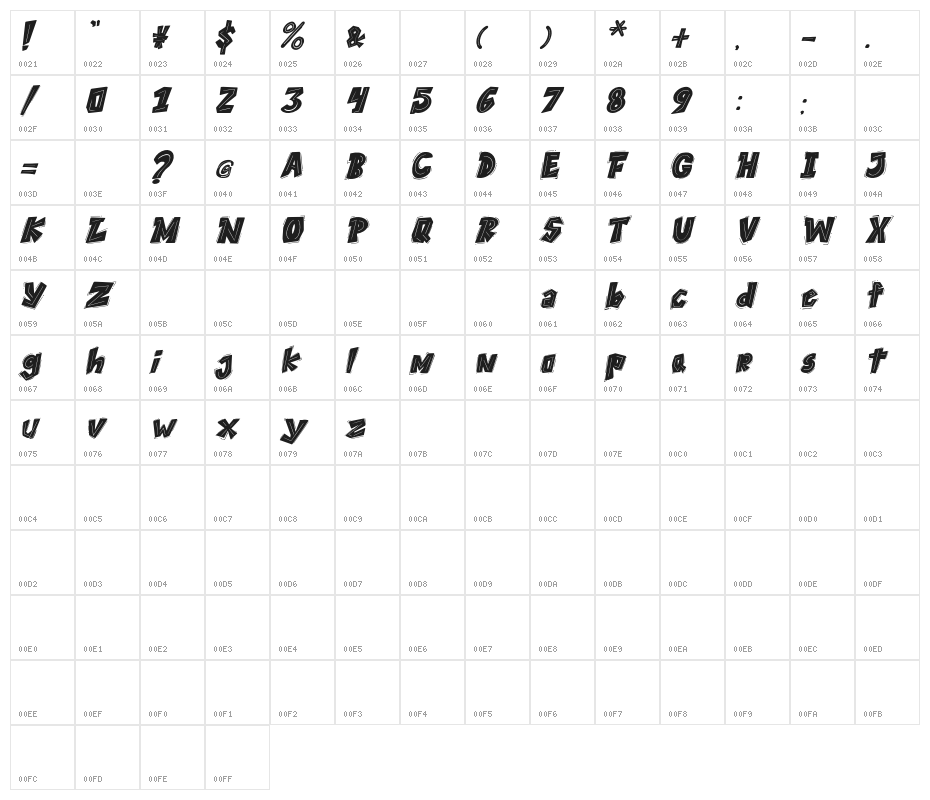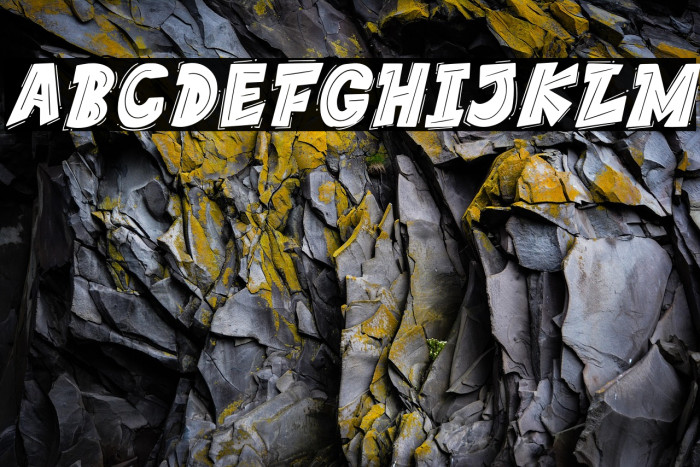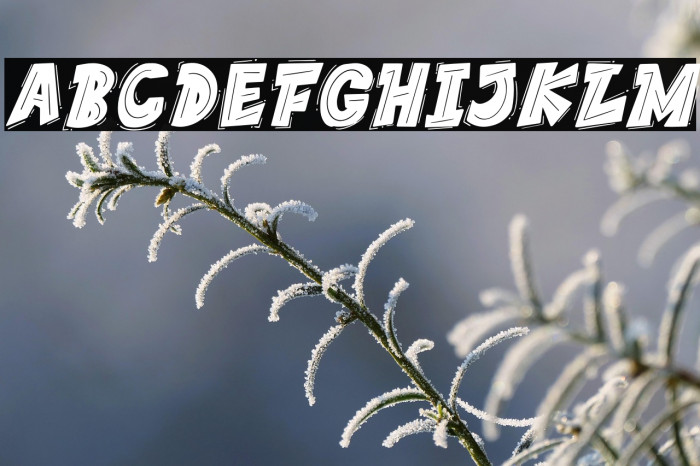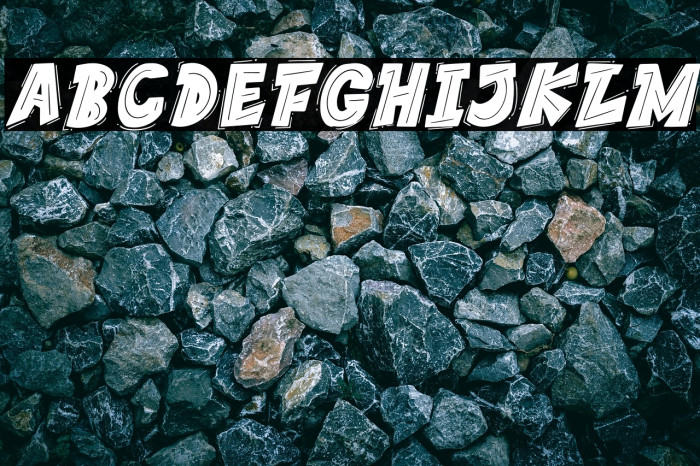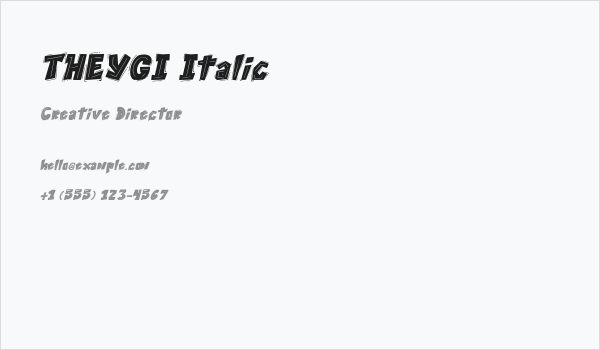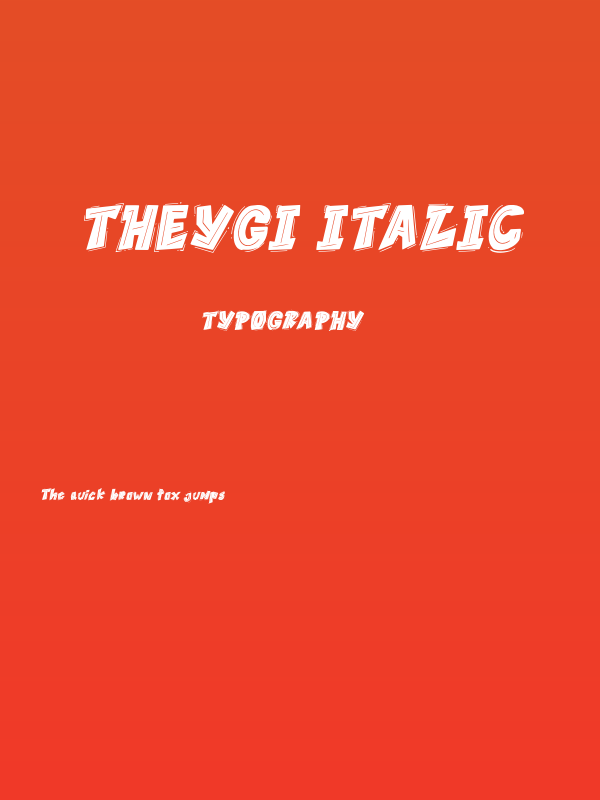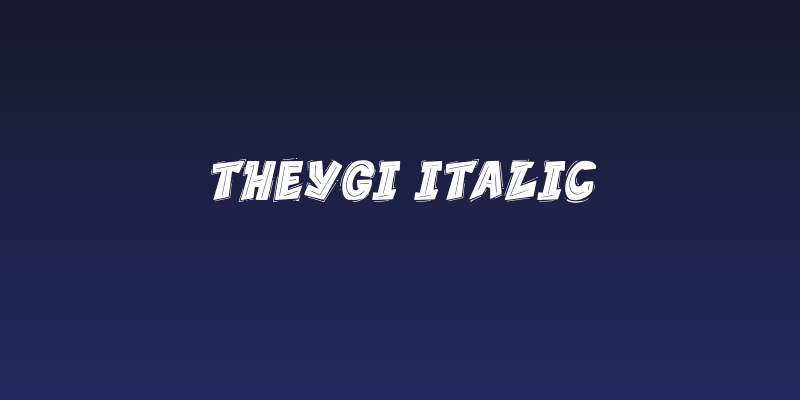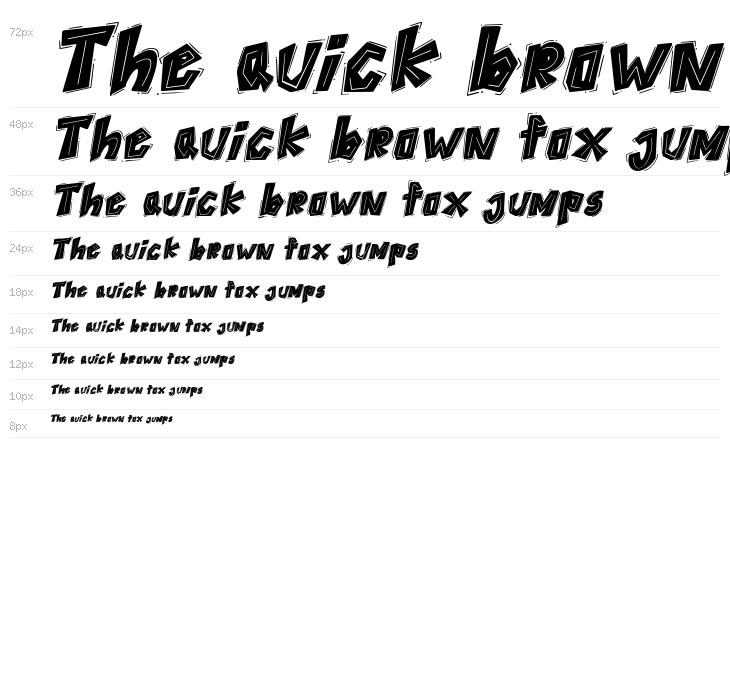
THEYGI Italic Font
THEYGI Italic Description
This font features a bold and dynamic style with a strong italic slant, creating a sense of movement and energy. The characters are outlined with a thick, black shadow that adds depth and a three-dimensional effect. The uppercase and lowercase letters maintain a consistent style, with sharp angles and a slightly condensed form. The numbers and special characters follow the same design principles, ensuring uniformity across all glyphs. The font's playful and edgy appearance makes it suitable for projects that require a bold statement.
| Proposed Projects | Ideal for posters, logos, and headlines that need a striking and energetic look. |